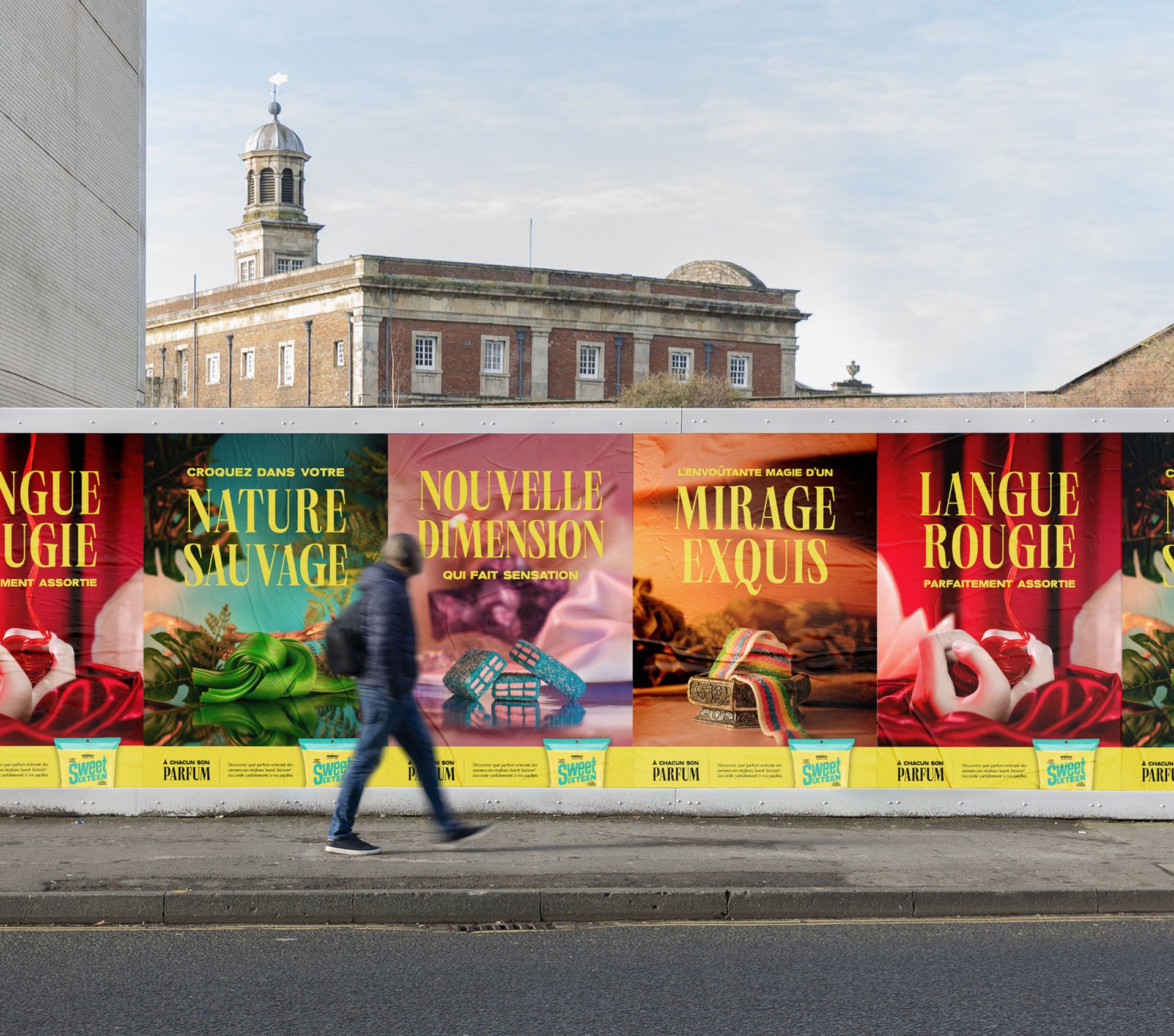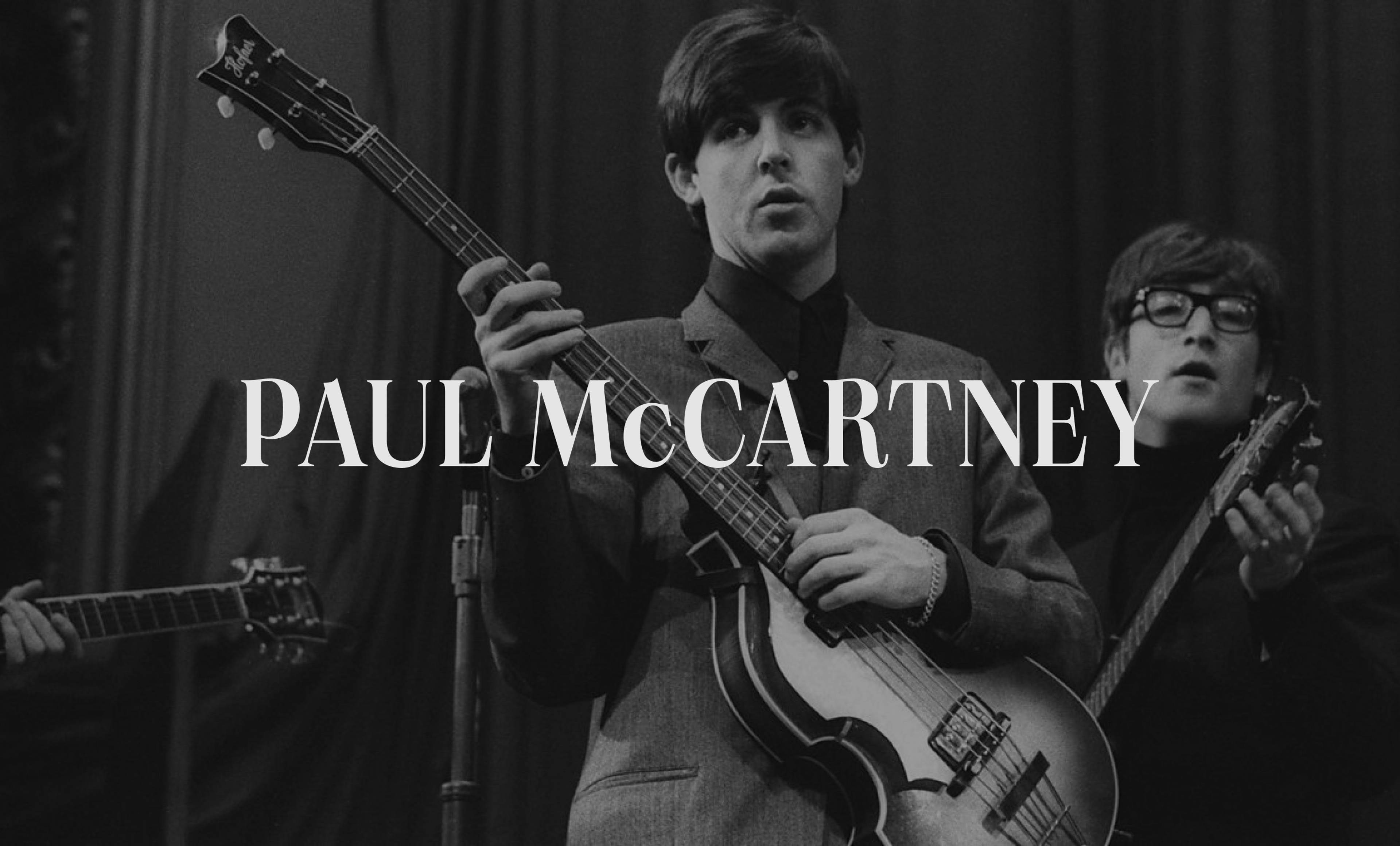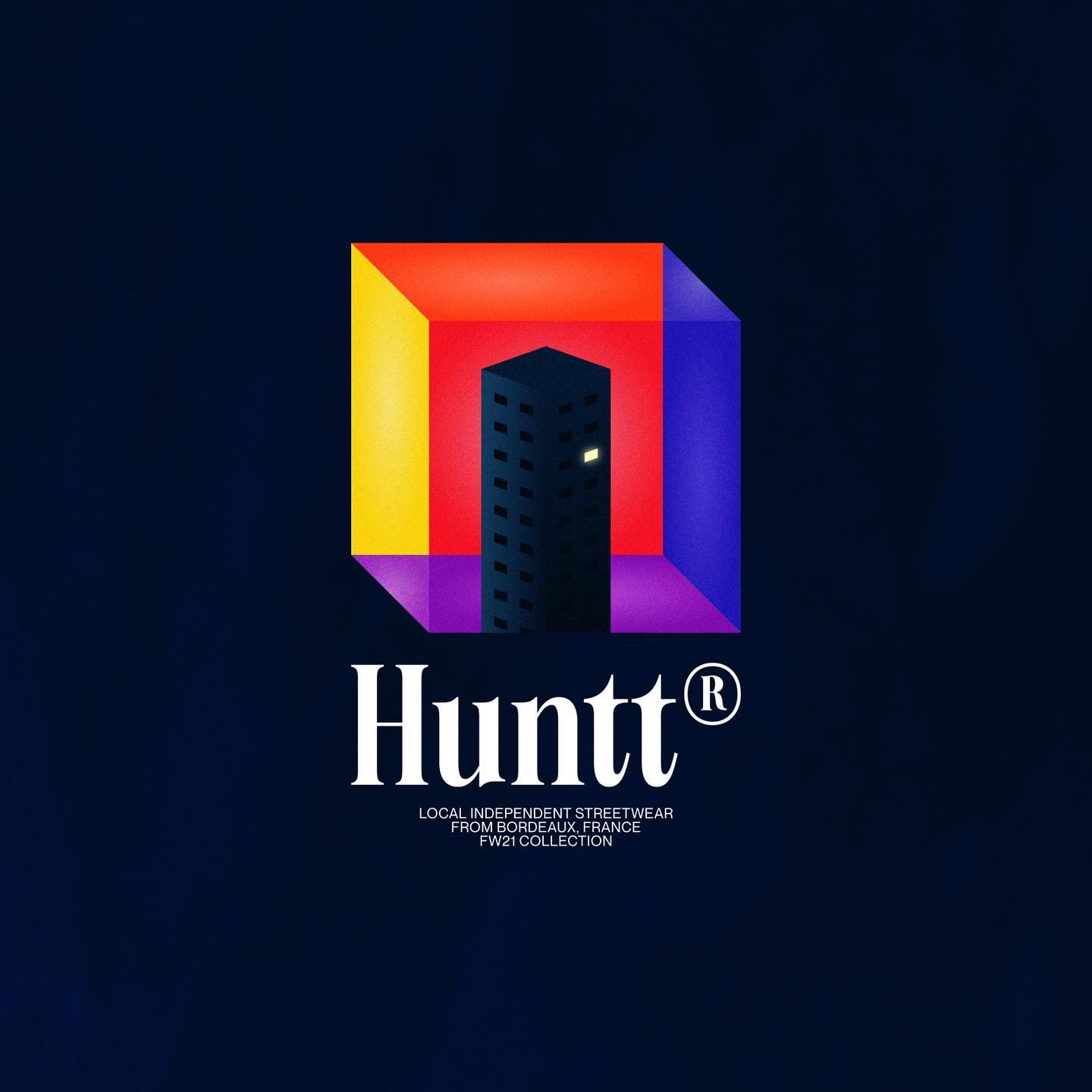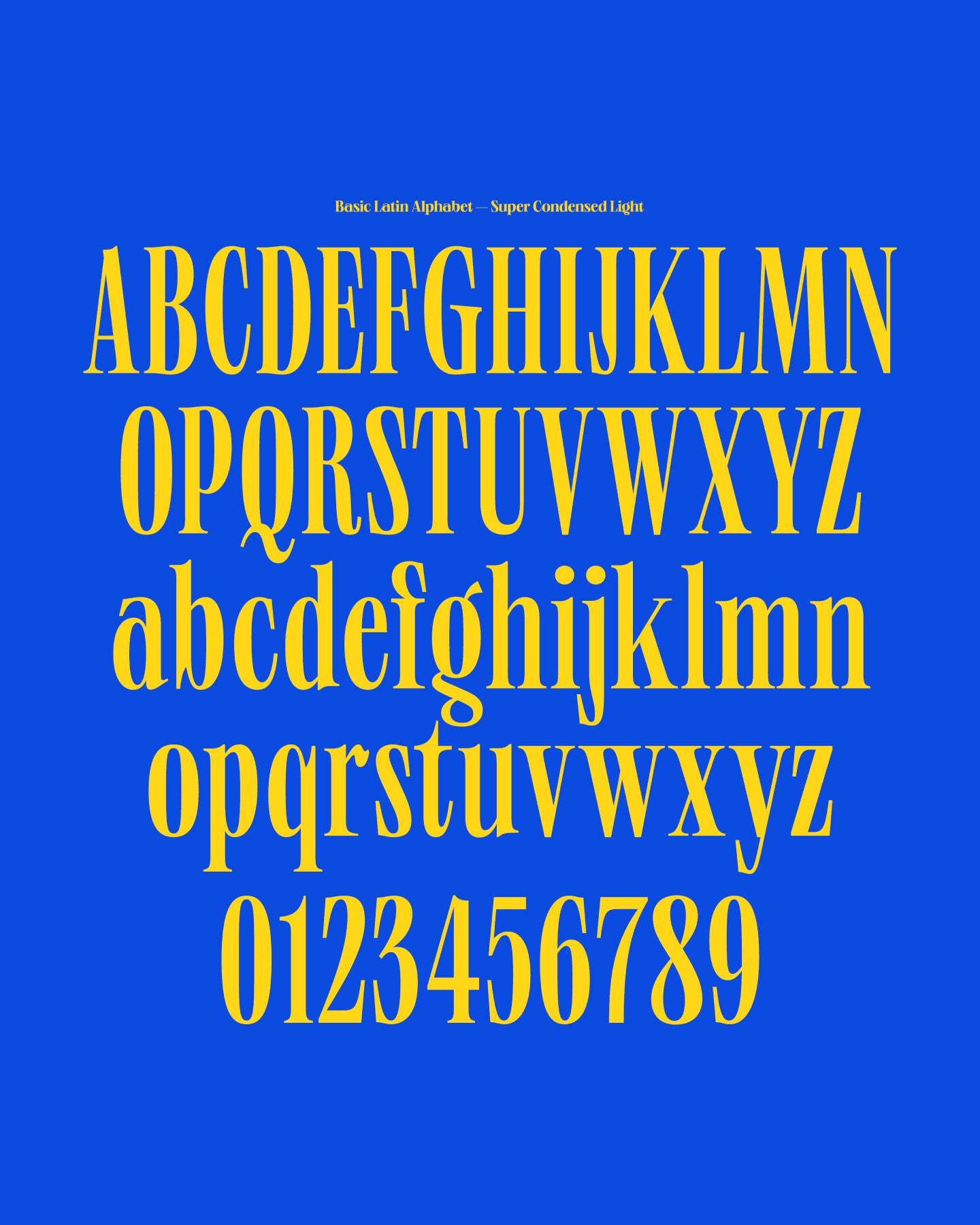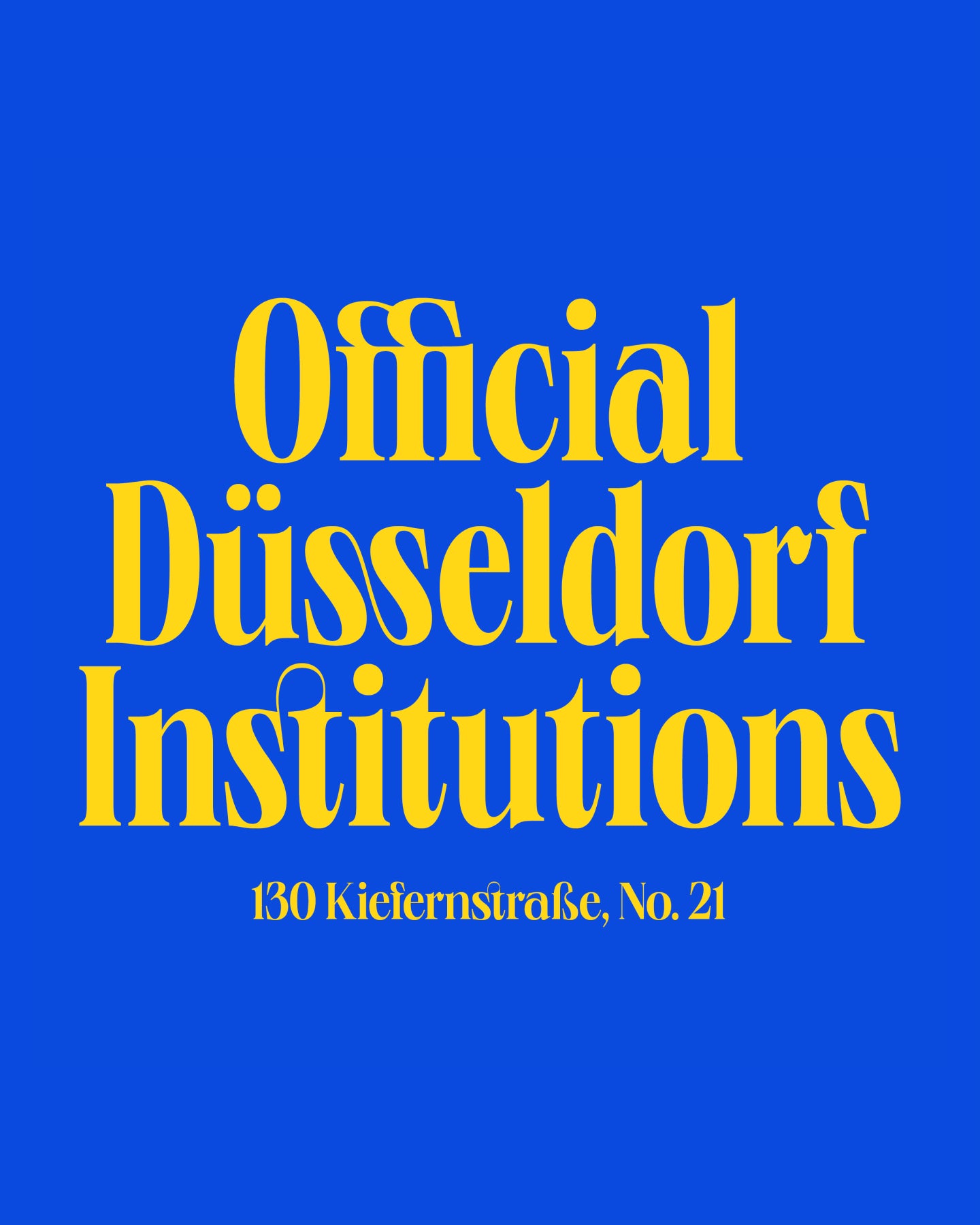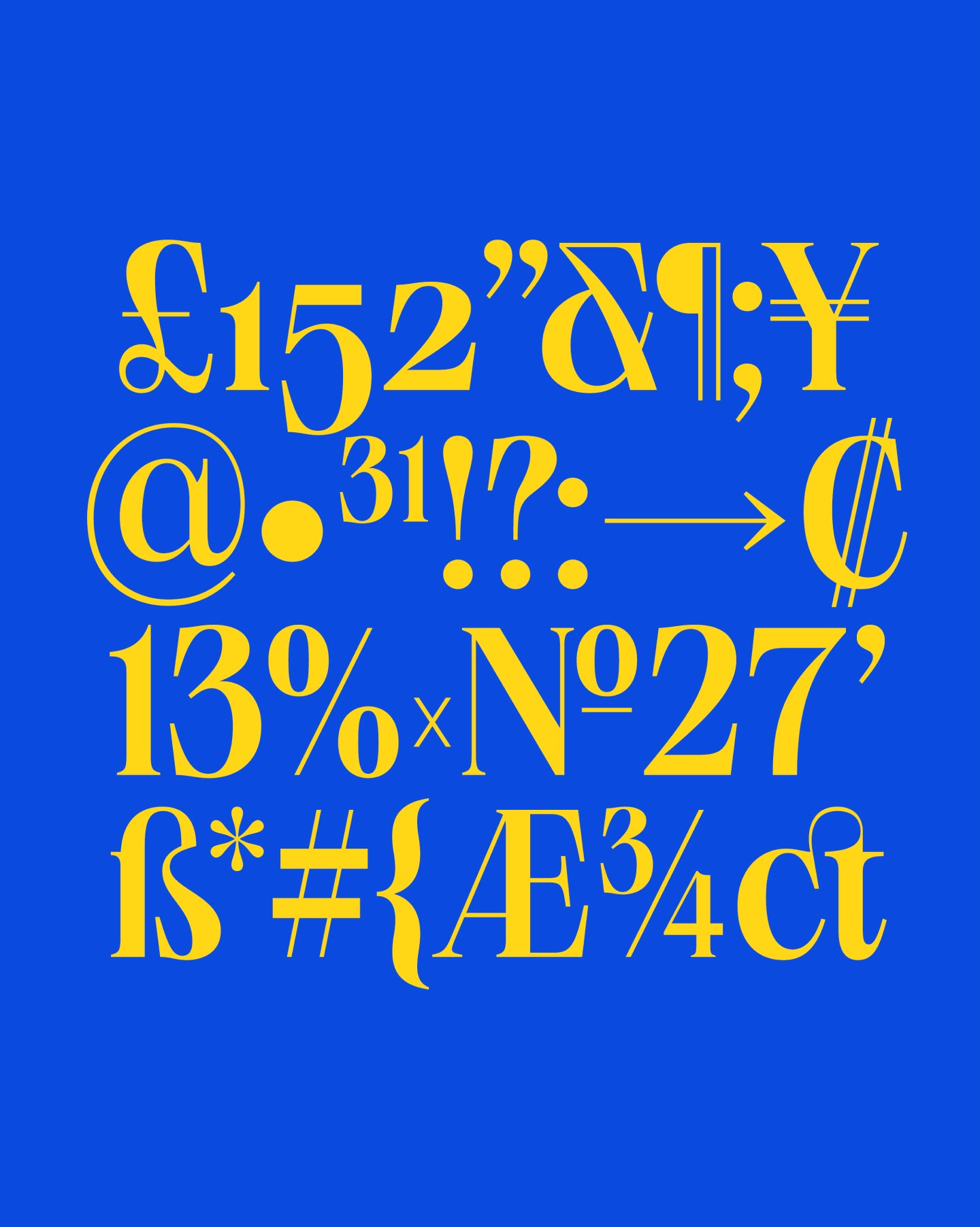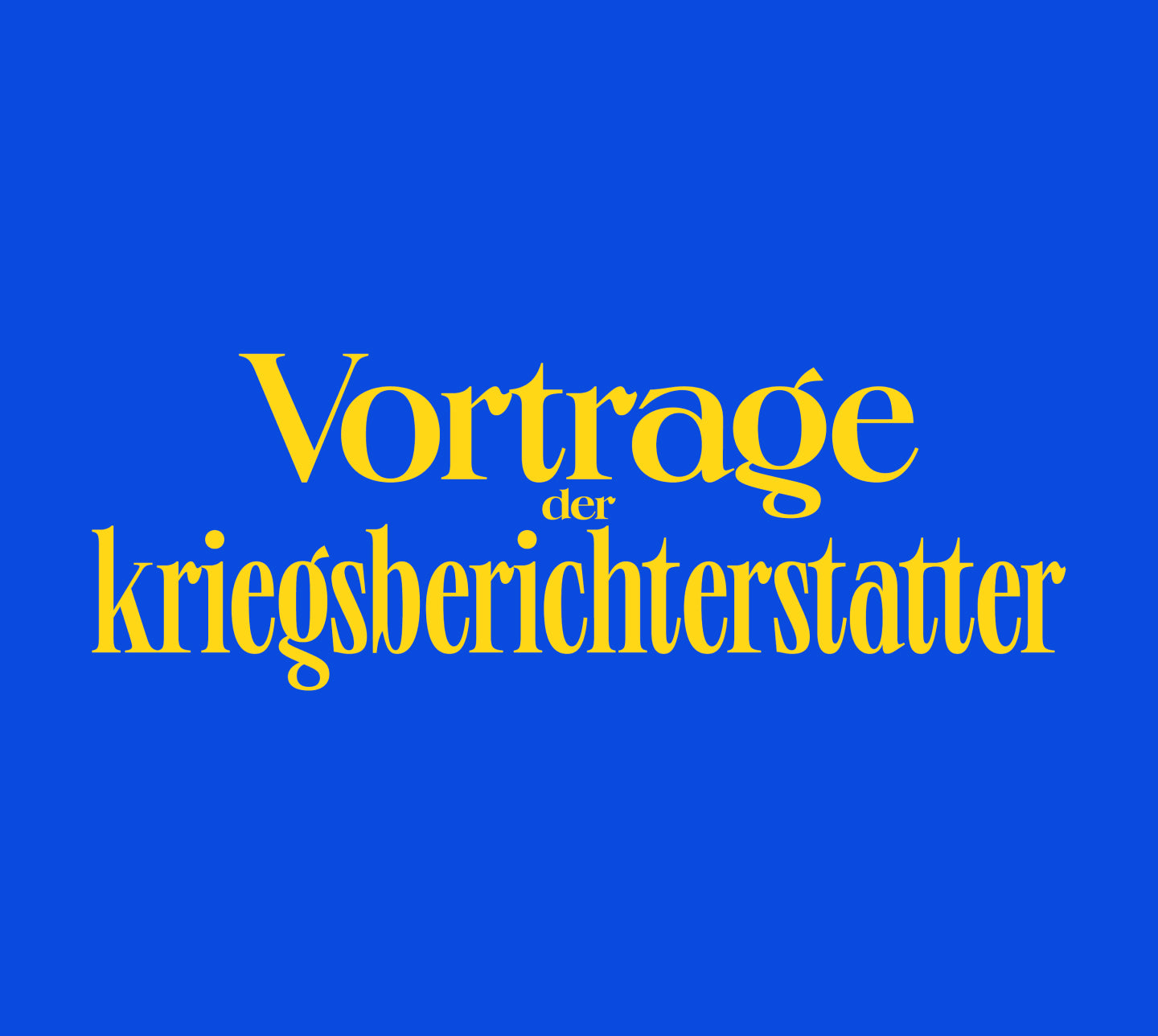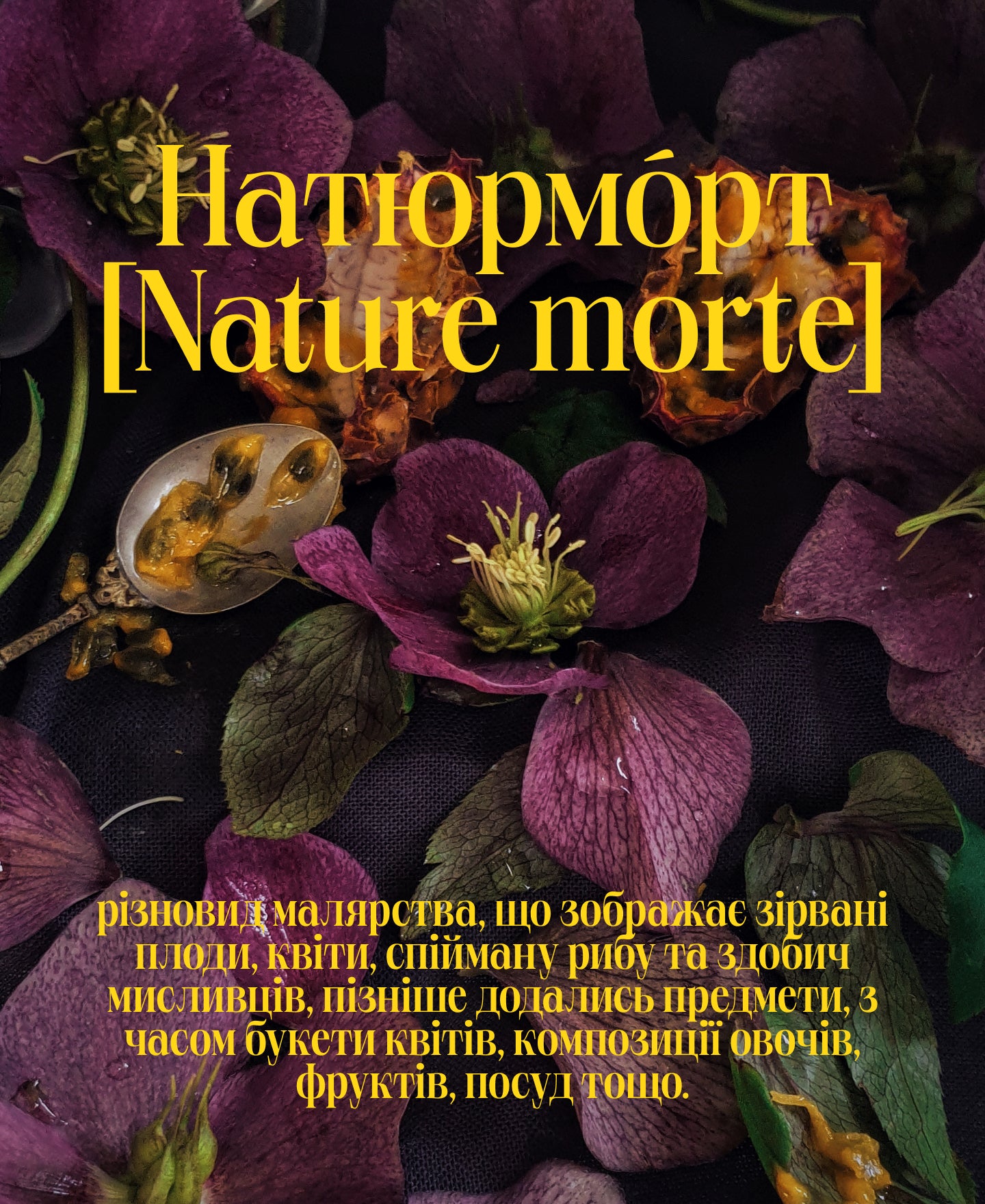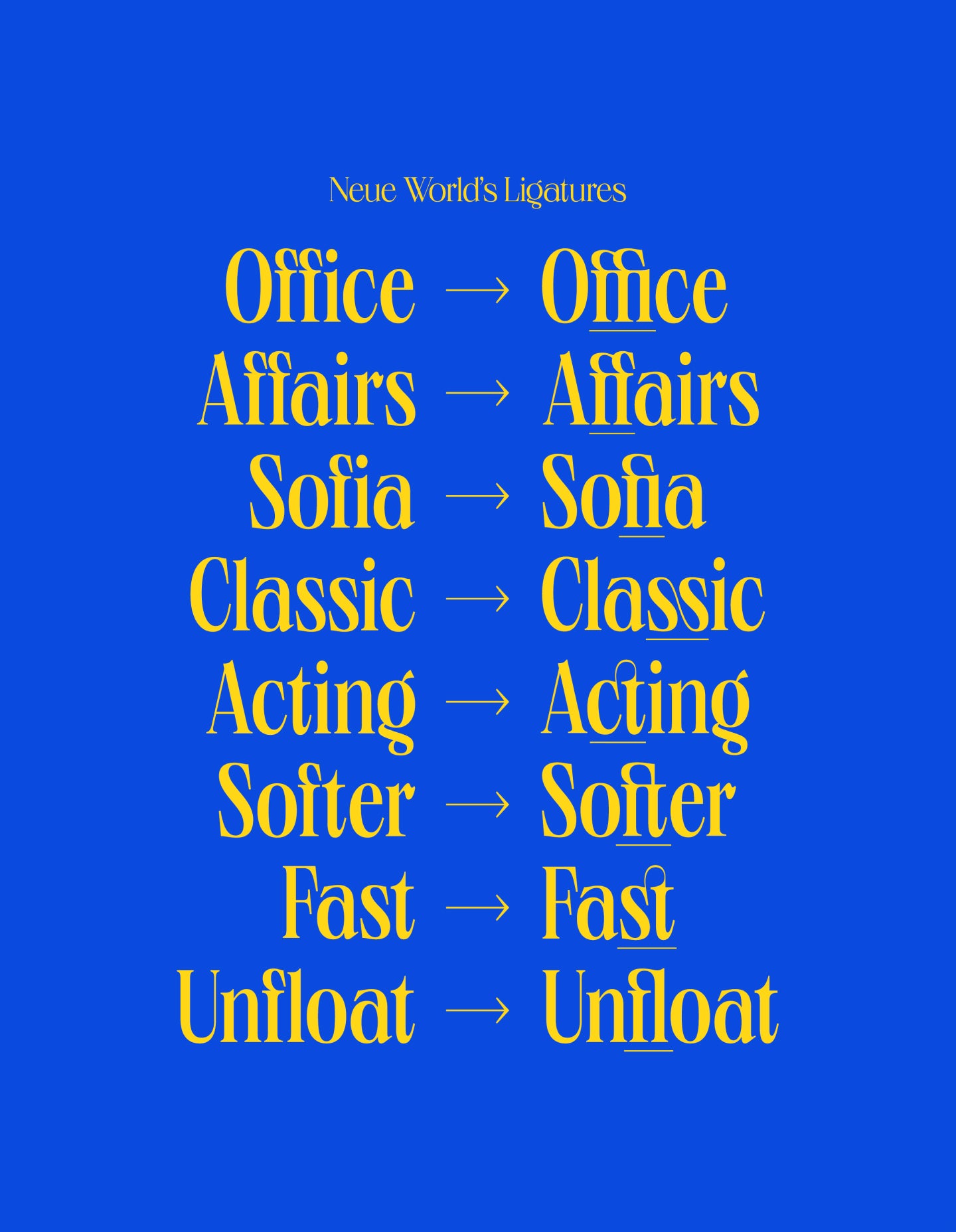
Neue World Extended style list
8 Styles
• Thin 100
• Ultralight 200
• Light 300
• Regular 400
• Medium 500
• Bold 650
• Ultrabold 775
• Black 900
Neue World Extended
All eyes on the headline.
Neue World Extended
All width, all wonder. Vintage soul, modern scale.
Neue World Extended
Neue World is a super-serif built for designers who think in headlines, posters, covers, and commanding first impressions. Inspired by the era when type was manually squeezed and stretched to fit the print space, Neue World brings that same flexibility—with none of the compromise.
Neue World Extended
With 6 widths and 48 total cuts, it’s a full-spectrum display system that adapts to any format, from ultra-narrow to luxuriously wide. Whether you’re working on a billboard or a book cover, Neue World always fits—and always owns the space. But this isn’t just about functionality. It’s about finesse. Neue World's soft curves and refined details bring a quiet elegance in lighter weights, while the stark contrast and sharp tension in the boldest cuts deliver high-impact drama. It’s a beautiful balancing act between grace and power. This is a serif with heritage and intention. A modern face that nods to the high-contrast display types of the past, yet stays firmly grounded in contemporary design needs. Whether you’re creating a luxury identity, a cutting-edge editorial, or a poster that needs to scream quietly—Neue World is your go-to. Free to try, easy to fall for. Neue World is more than just a typeface—it’s a format-flexing, elegance-serving, statement-making typographic essential.
Neue World Extended is variable
Neue World Extended's Features
Alternate g
g
Old style figures
Alternate &
&
Standard ligatures
Case sensitive forms
From Narrow Margins to Wide Statements.
Neue World is a free-to-try super-serif font family with 6 widths and 48 cuts. Inspired by vintage display types often manually squeezed to fit the print size, this typeface has all the widths required to accommodate any format. Its soft curves and refined details create a sense of elegance in its thinner weights, while the hard contrast in its heavier weights creates a bold statement.
A beautiful, modern serif that pays homage to its forerunners. The stunning details and versatile possibilities for this font make it an essential addition to any type tool kit.
8 Weigths with 650 Glyphs each
Including Cyrillic Support